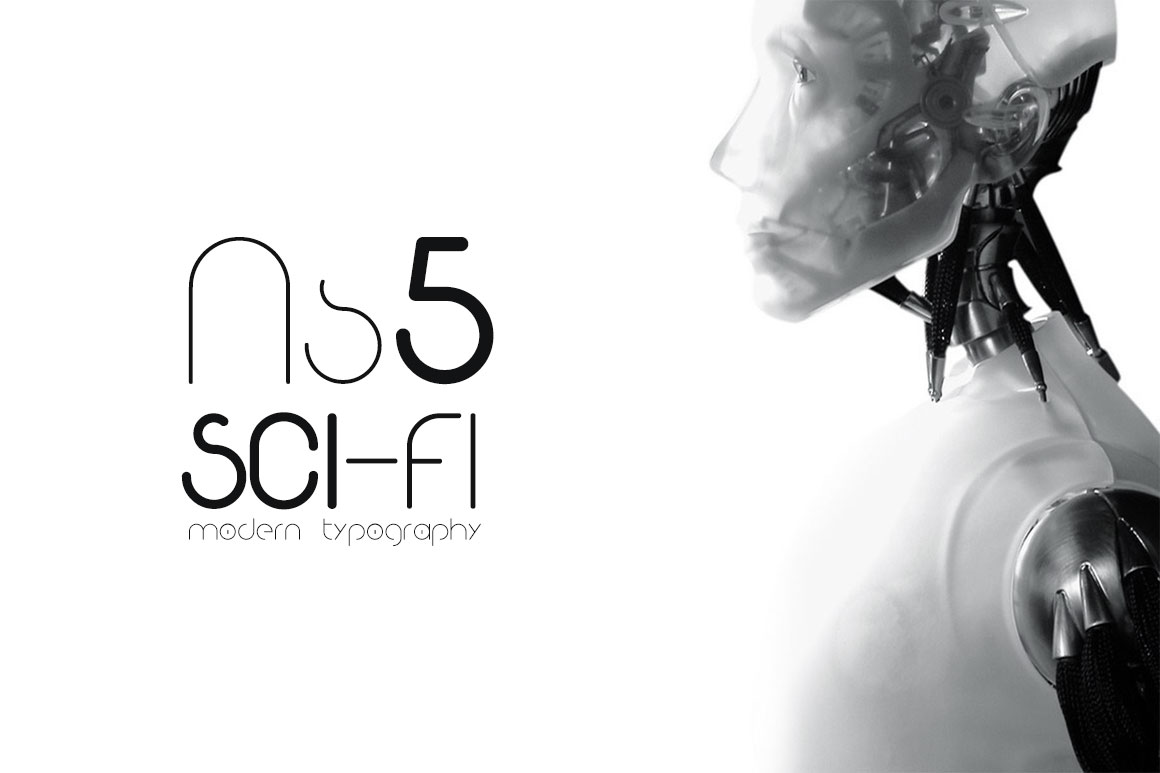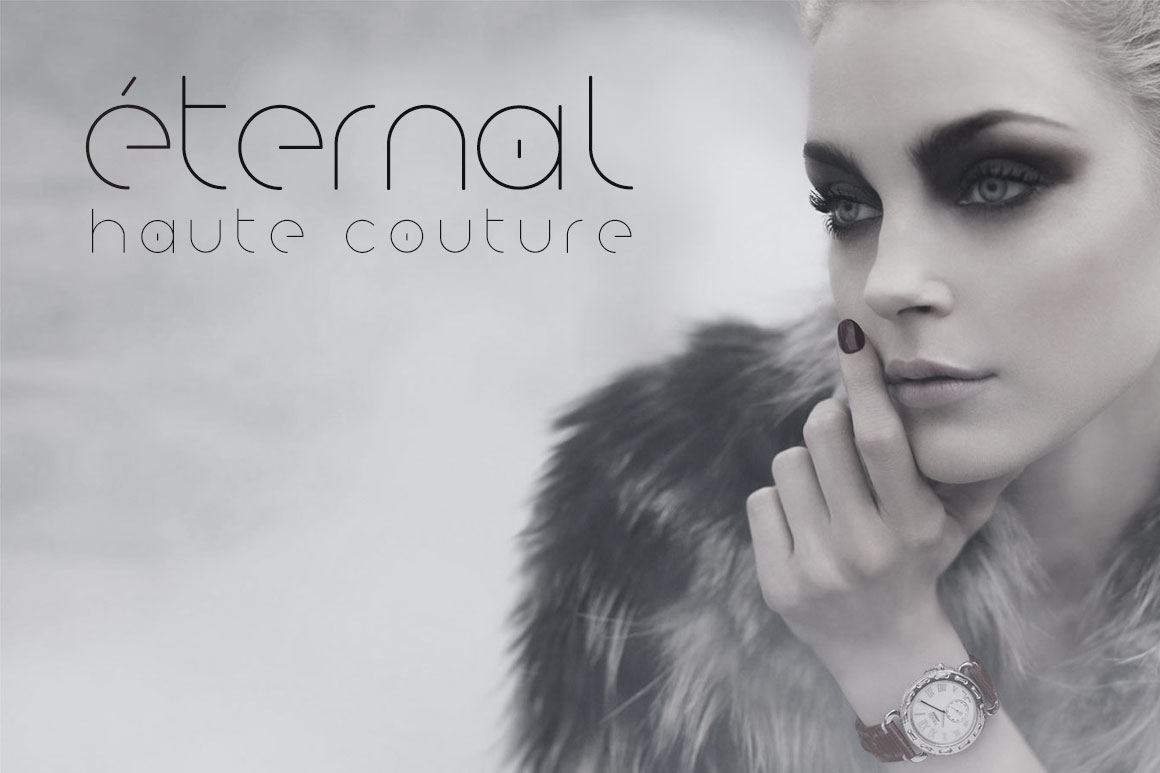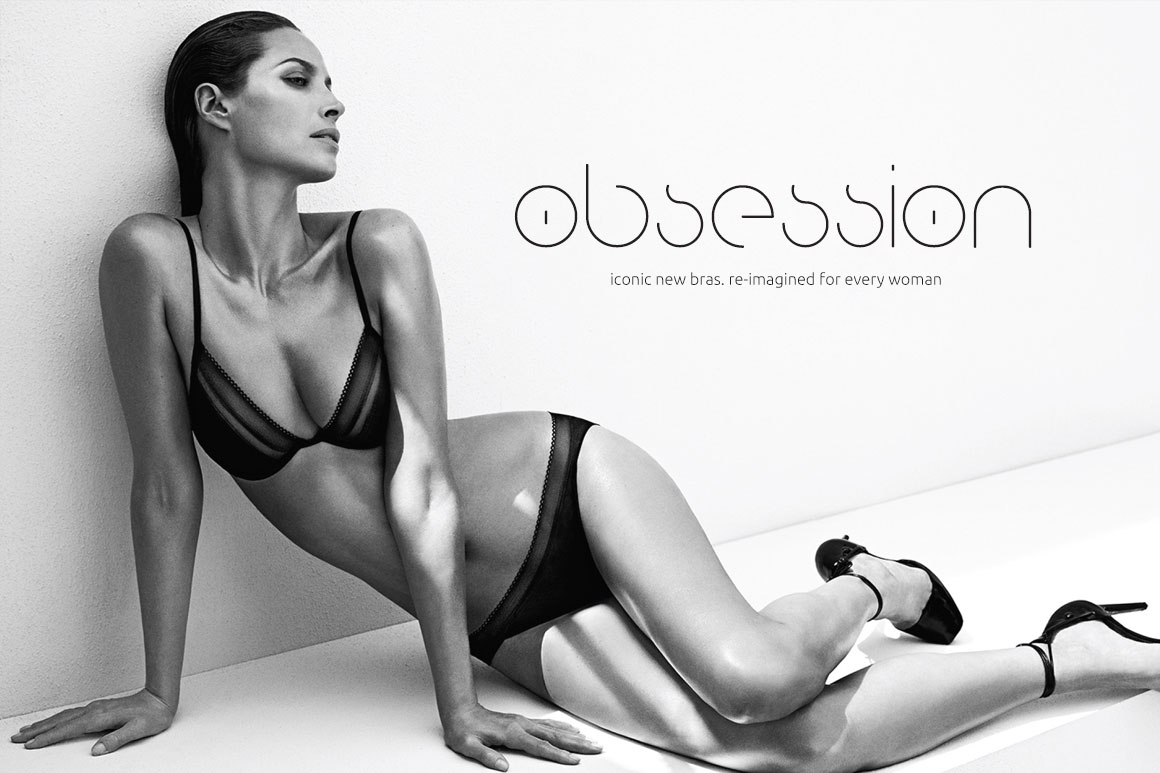
Introduction to Eva Typeface Font
As a designer, there’s nothing quite like the thrill of bringing a creative project to life. You’re brainstorming ideas, sketching out concepts, and experimenting with different design elements until you find the perfect combination. But sometimes, no matter how hard you try, your design just needs that extra something to take it to the next level. That’s where high-quality fonts come in – and that’s where the Eva Typeface Font comes in.
With its modern and sleek design, the Eva Typeface Font is the perfect addition to any design project. Whether you’re working on a branding campaign, creating a website, or designing a logo, this font is sure to elevate your design and make it stand out. And with its transparent background, you can easily layer it over any image or design element, giving you complete creative control.
As a valuable design resource, the Eva Typeface Font offers three thicknesses – Eva Regular, Eva Light, and Eva Bold – each with multilingual support, making it an ideal choice for designers working on international projects. And the best part? It’s available for free download, making it an accessible and affordable option for designers of all levels.
Key Features of Eva Typeface Font
- High-quality design resource ideal for creative projects, offering a clean and modern aesthetic.
- Features a transparent background, allowing for seamless integration into any design or project.
- Unique characteristics include its sleek and minimalist design, making it perfect for digital and print media.
- Designed to be highly legible and versatile, suitable for use in headings, body text, and other creative applications.
Honest Review: Eva Typeface Font
I recently had the chance to work with the Eva Typeface Font for a creative project and I must say it’s been a game-changer. This high quality design resource has made my job a whole lot easier.
- Beautiful, elegant design that adds a touch of sophistication to any project
- Transparent background makes it easy to customize and style as needed
The Eva Typeface Font is incredibly versatile and can be used in a variety of creative projects, from logos and branding to web design and print materials.
- May not be the best option for projects requiring a more modern or edgy look
- Limited character set, which may cause issues for designers working with languages that require a larger character set
Overall, I’m really impressed with the Eva Typeface Font. It’s a great addition to any designer’s toolkit and I’m excited to see what other creative projects I can use it for.
To get the most out of the Eva Typeface Font, use it in combination with other high-quality design resources to create a cohesive and visually appealing design. Experiment with different font sizes, colors, and styles to find the perfect look for your project.
The Eva Typeface Font is perfect for a variety of creative projects, including logo design, branding, and marketing materials. Its transparent background makes it easy to overlay on images, making it a great choice for social media graphics and website design.